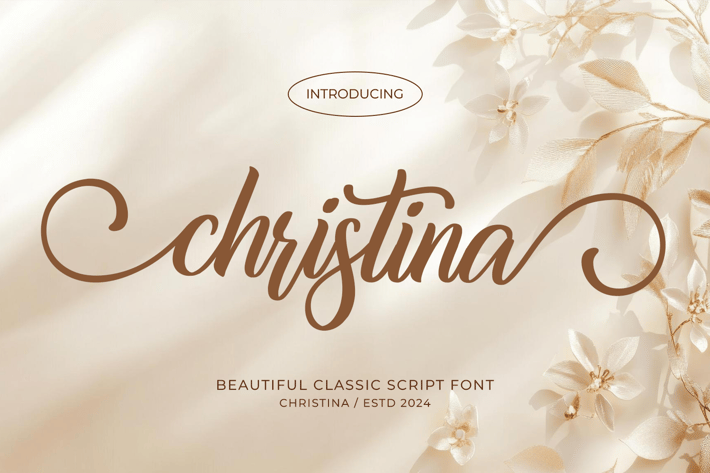
Christina - Christmas Font
Introducing "Christina," a beautifully crafted script handwritten font, perfect for adding a touch of elegance and charm to your special projects. Designed with the delicate flow and grace ideal for wedding invitations, birthdays, and festive celebrations like Christmas, New Year, and Easter, Christina brings a warm and personal feel to every word.
This font is not just a script; it's a creative toolkit. Each character comes with beginning and ending swashes, giving your text a stylish, flowing look that feels effortlessly graceful. Whether you're crafting holiday cards, designing custom lettering for Cricut projects, or adding a personal touch to embroidery, Christina has you covered.
With a wide range of alternates, you can easily customize your text to fit your creative vision. The versatility of Christina makes it a perfect choice for crafting, whether you're designing Thanksgiving cards, creating winter-themed projects, or working on Easter crafts. Its flowing script style is also ideal for SVG designs, bringing a handcrafted feel to your digital work.
Christina's timeless elegance and adaptability make it a must-have for any designer. It captures the essence of celebration and creativity, making every project feel special. Whether you're working on a professional project or a personal craft, Christina is the perfect companion to bring your ideas to life.